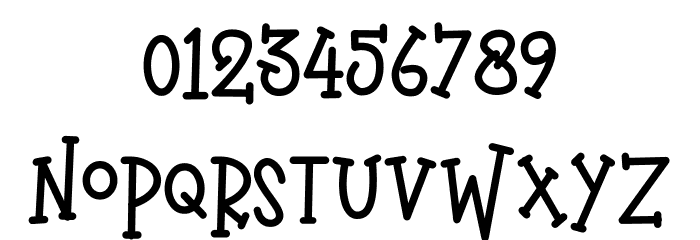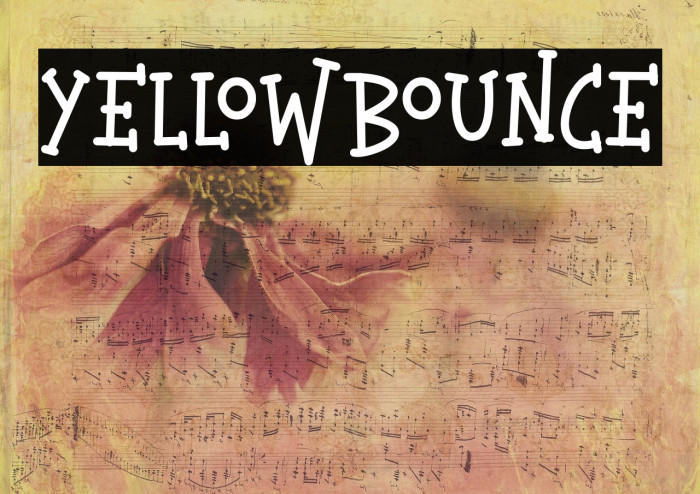
YELLOWBOUNCE Font
This font features a playful and whimsical design with exaggerated serifs and a hand-drawn feel. The letters have a bouncy baseline, giving them a lively and energetic appearance. The strokes are consistent in width, with rounded ends that add to the friendly and approachable style. The characters are well-spaced, ensuring readability while maintaining a casual look. This font is ideal for projects that require a fun and informal touch, such as children's books, playful branding, or creative invitations.
A playful, hand-drawn font with exaggerated serifs and a bouncy baseline.
- Proposed Projects: Ideal for children's books, playful branding, creative invitations, and casual posters.
- Overall Style: Playful, Whimsical